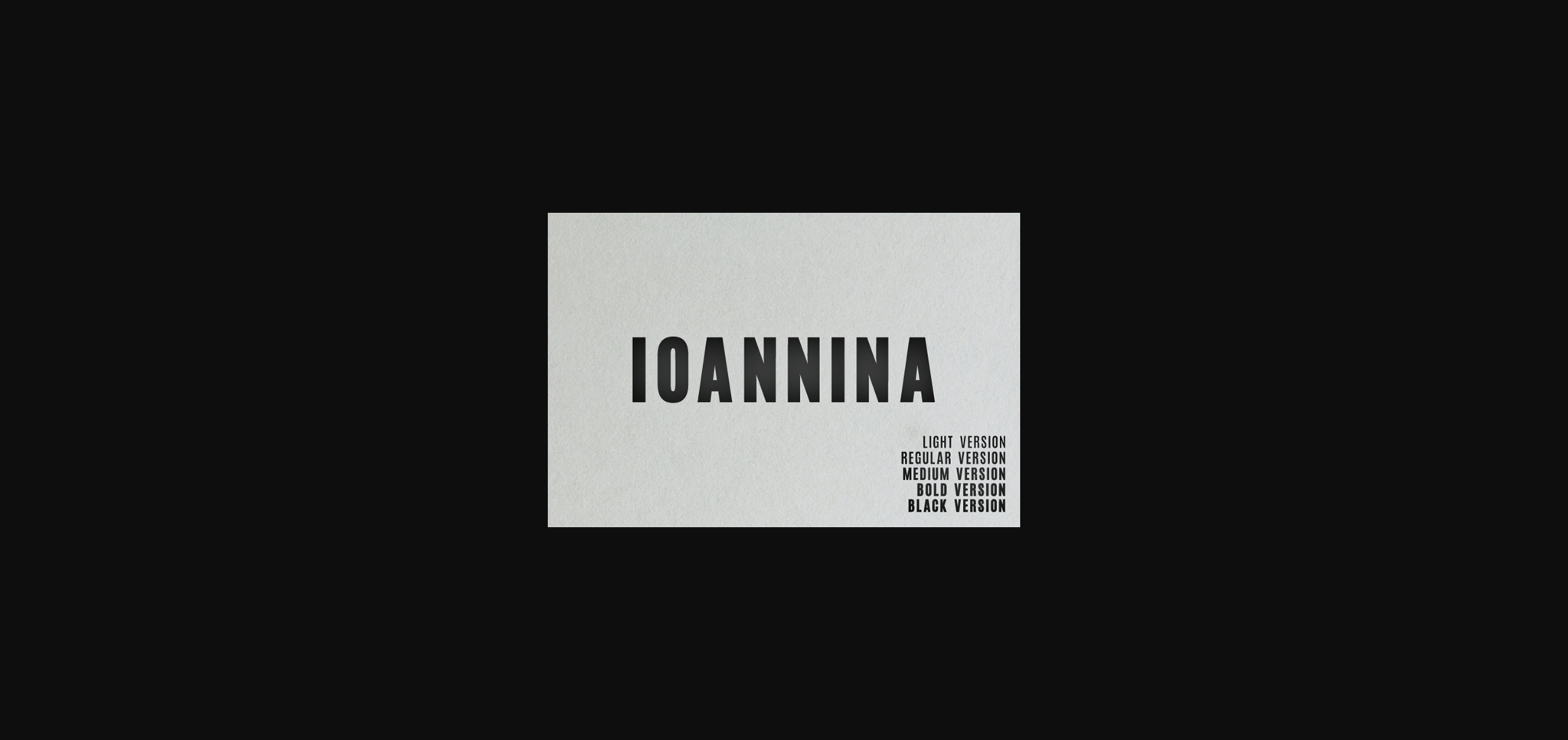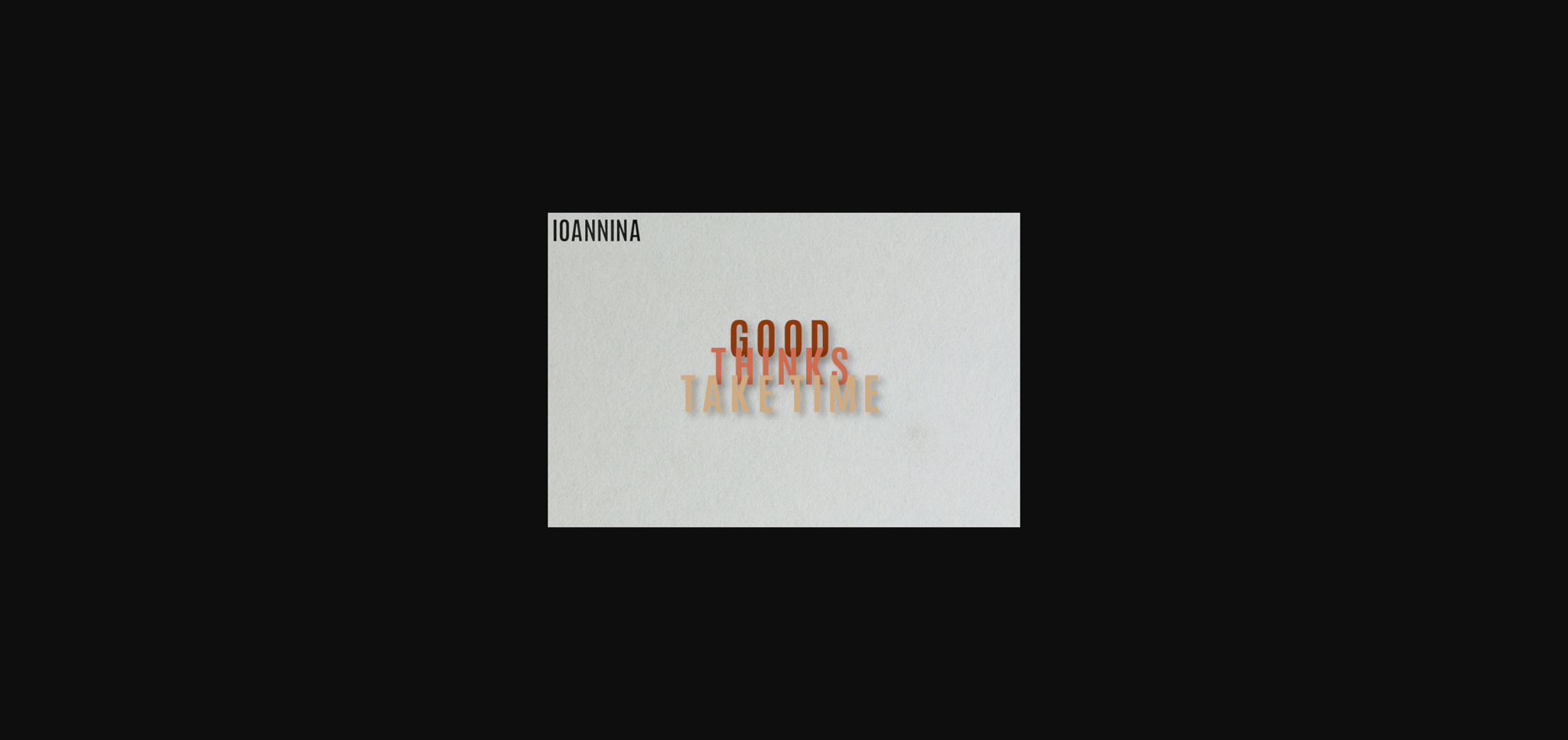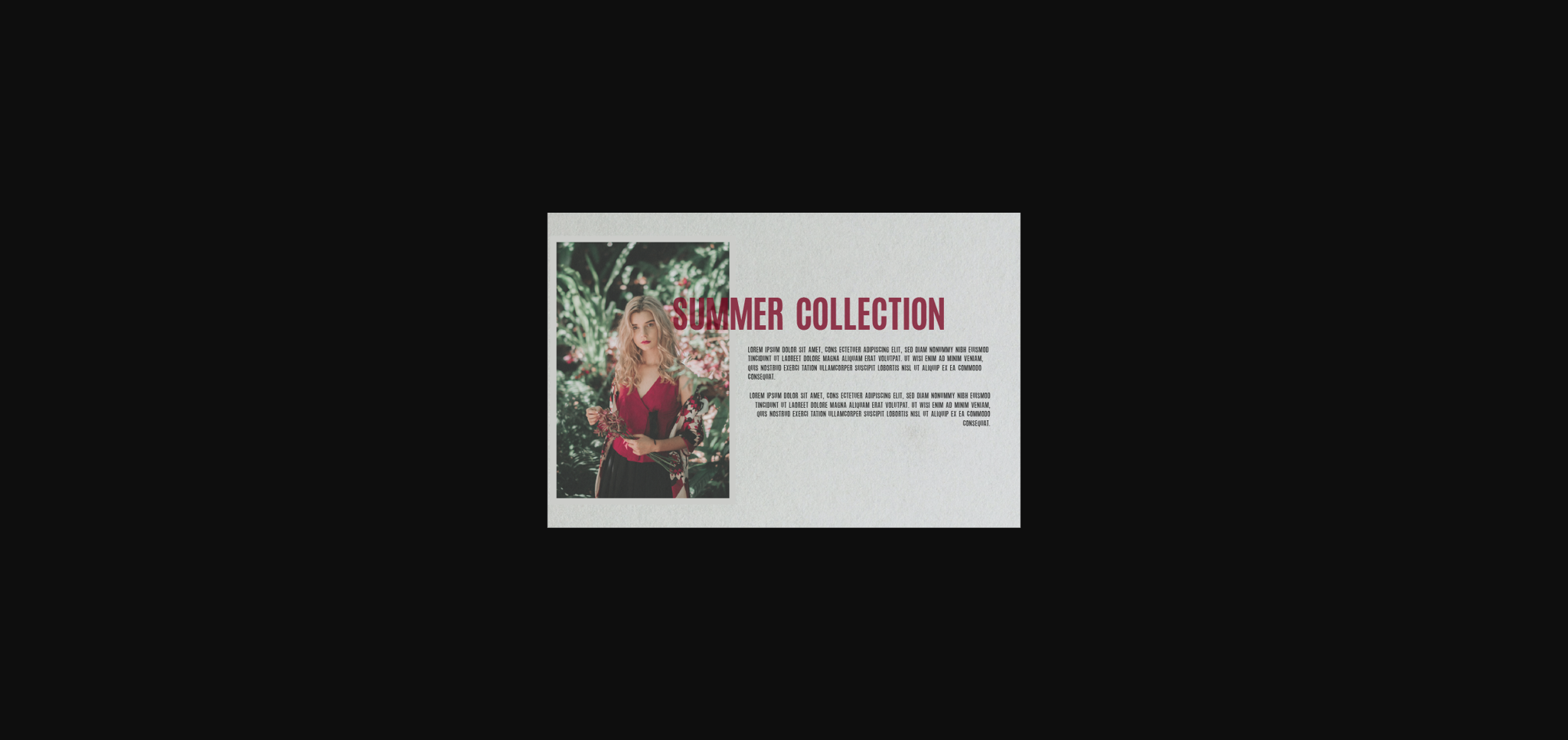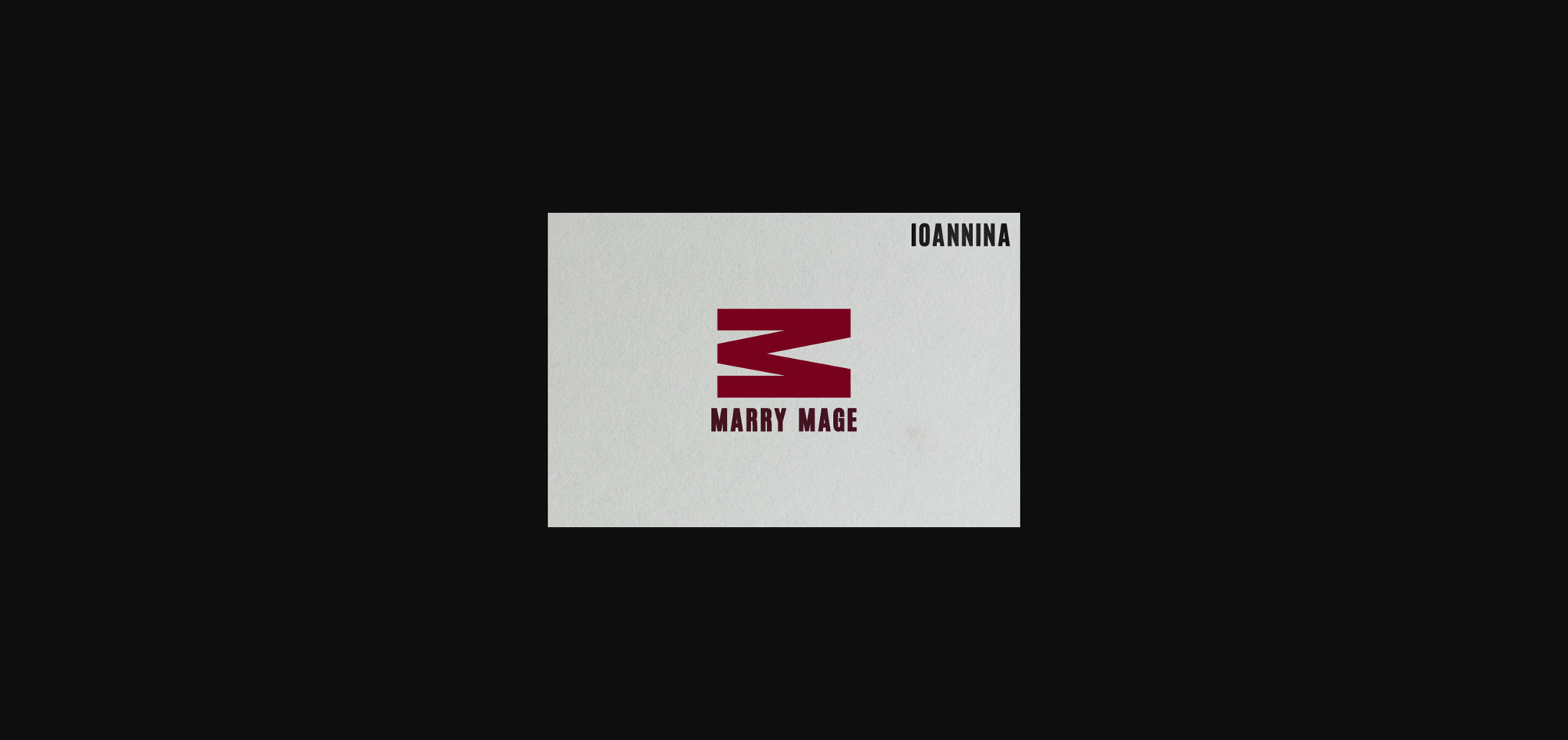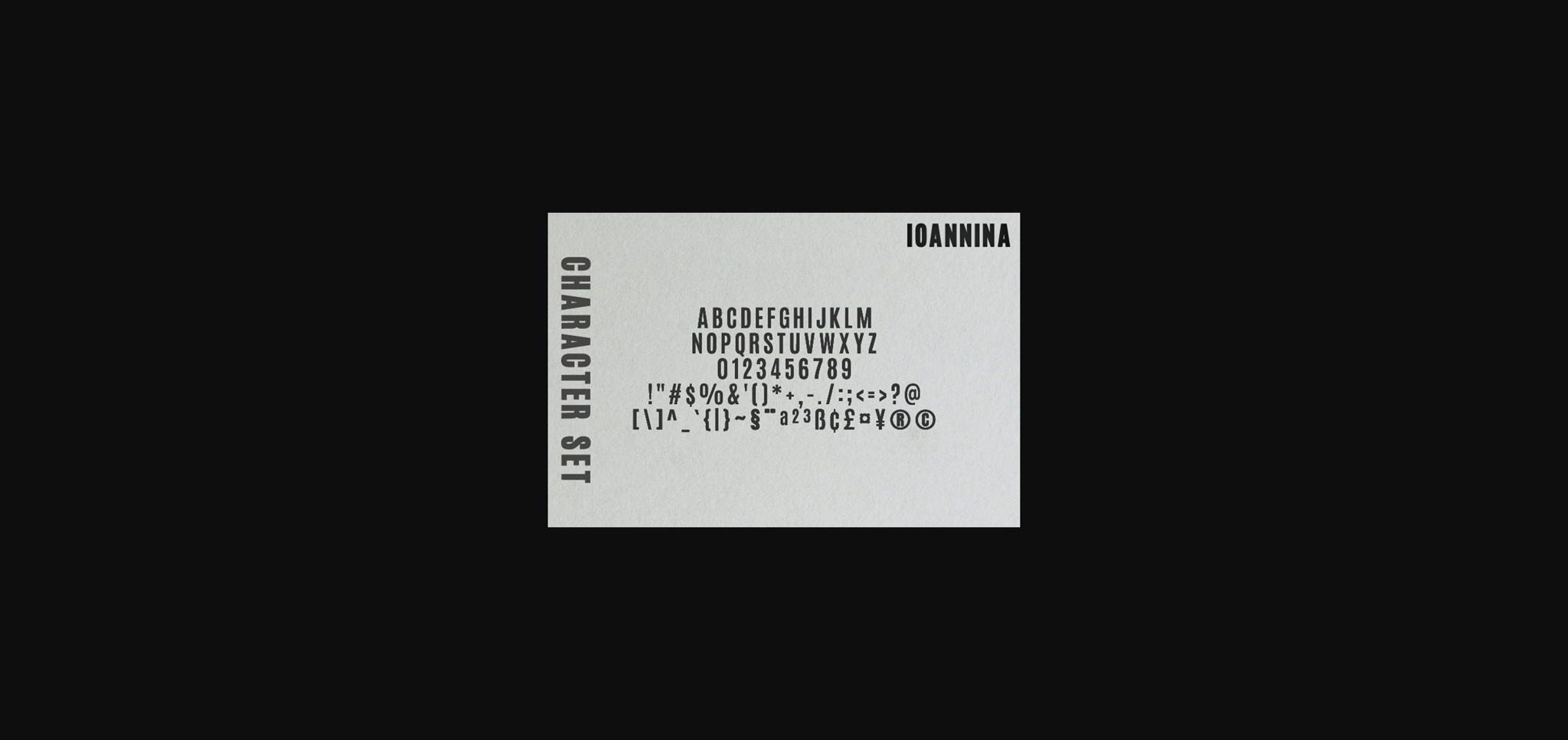
HomeSans Serif FontsIoannina Family Font Sans Serif Fonts Ioannina Family Font FacebookTwitterPinterestWhatsApp 1 of 7 ... Ioannina Family Font Poster 2... Ioannina Family Font Poster 3... Ioannina Family Font Poster 4... Ioannina Family Font Poster 5... Ioannina Family Font Poster 6... Ioannina Family Font Poster 7... About Ioannina Family Font Ioannina is the strong sans serif typcae with a vintage touch. Get inspired by its bold appearance! DOWNLOAD NOW People also explored Butterbean Font Bright Snowflakes Font Smart Choices Duo Font Lovely Nw Font Moment Farmhouse Font Birch Candles Font Prince Frog Font Quickcrop Font Wyllam Font 149 0 TagsIoannina Family Font Previous articleSapphire FontNext articleMerhique Family Font LEAVE A REPLY Cancel reply Comment: Please enter your comment! Name:* Please enter your name here Email:* You have entered an incorrect email address! Please enter your email address here Website: Save my name, email, and website in this browser for the next time I comment. Personal Use Free Jelly Fish Personal Use Free Read more about this font Midnight Show Personal Use Free Read more about this font Coffete Personal Use Free Read more about this font Happy Camping Personal Use Free Read more about this font BLOG Exploring Font Trends Shaping Communication in the Digital Era Fonts, like all design elements, are subject to trends. They play a crucial role in communicating a brand's personality,... Using Fonts in Digital Marketing: Tips to Strengthen Your Brand Identity Top 7 Google Fonts Alternatives for Faster and Privacy-Friendly Web Design (2025) Where to Buy American Fonts Online in 2024